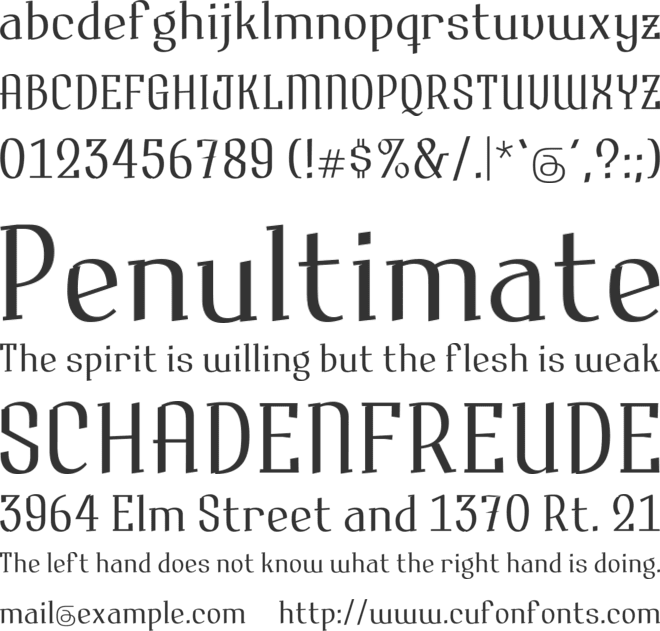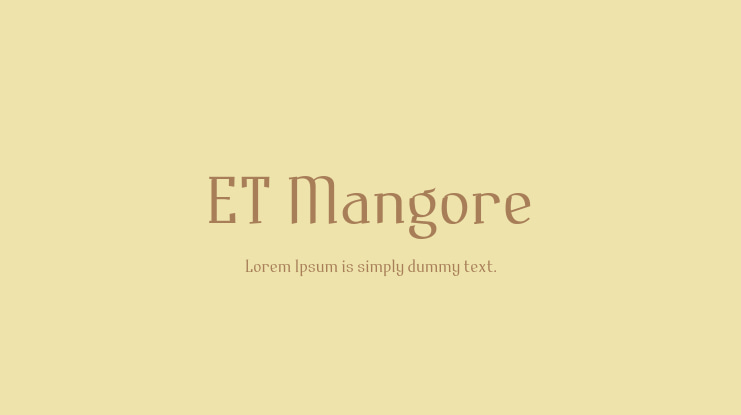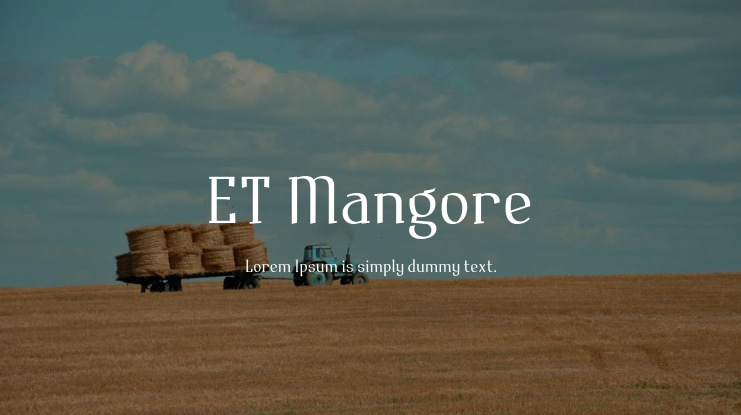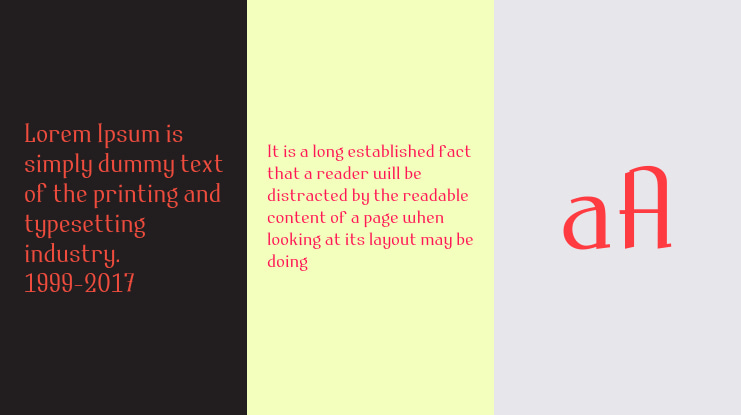
ET Mangore Font Family
ET Mangoré, inspired by classic signage and flat pen calligraphy, is a typeface designed for various applications. Mangoré features three widths—Condensed, Normal, and Expanded—and six weights from Thin to Black, providing a range of options for different design needs. Its OpenType Features, including ligatures and alternate characters, enhance its adaptability. Whether for compact notices or expansive banners, Mangoré balances readability and impact, combining classic charm with modern flexibility to help you convey your messages effectively.